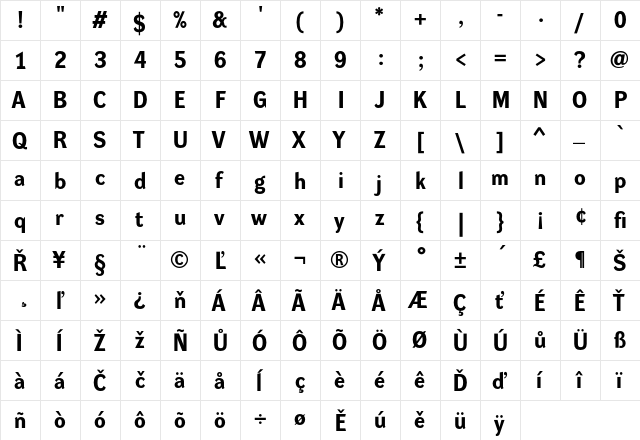
Dynamo R Regular
Design Context for Dynamo R Typeface
Dynamo R offers clean, dependable letterforms without strong stylistic allegiance, making it a practical choice for designers who need flexibility.
Pro Tip: Use Dynamo R in both headline and body roles to test its range before committing to a single application.